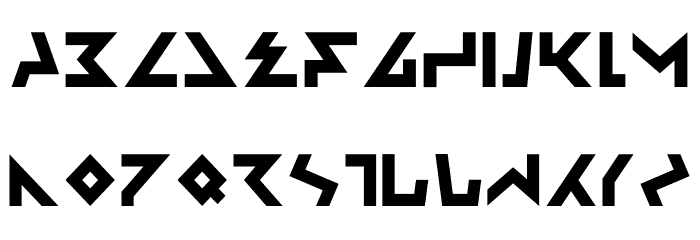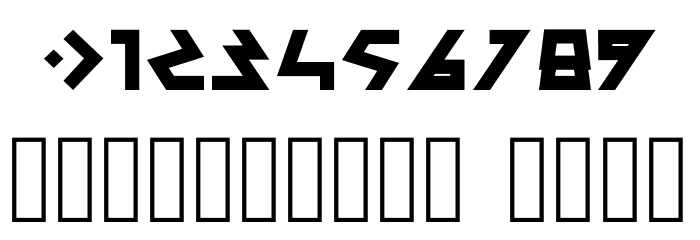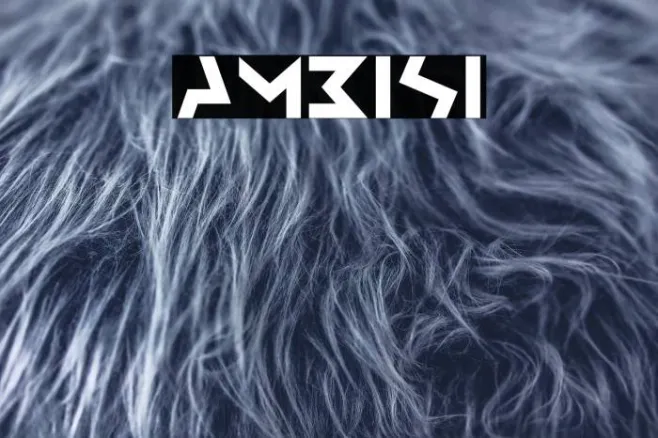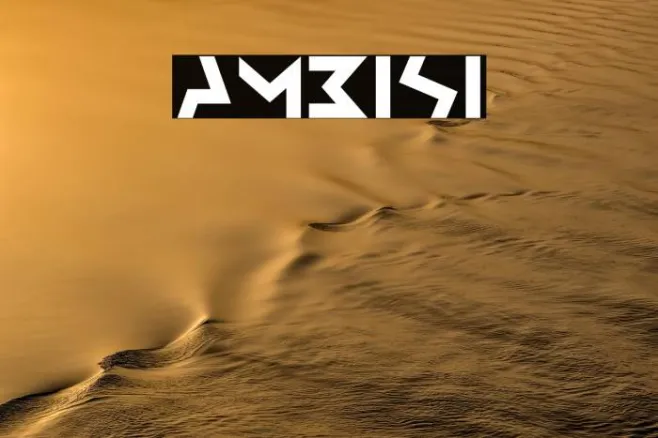
Ambisi Font
This font features a bold, geometric style with sharp angles and a futuristic aesthetic. Each character is constructed from a series of straight lines and angular shapes, creating a sense of movement and energy. The uppercase and lowercase letters maintain a consistent design, emphasizing symmetry and uniformity. Numbers and special characters follow the same angular theme, ensuring a cohesive look across all elements. The font's distinct appearance makes it ideal for projects that require a modern and edgy feel.
- Font: Ambisi
- Proposed Projects: Ideal for sci-fi themed designs, video game graphics, posters, and branding that requires a modern, edgy look.
- Overall Style: Futuristic